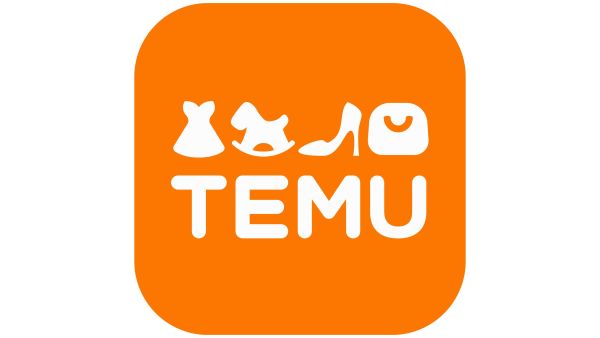
Temu Font
What Font is Temu?
The Temu Font used in the brand’s word-mark is very close in style to Gotham Rounded Bold by Hoefler & Co., featuring clean geometric sans-serif letterforms with subtly rounded ends. For designers looking to replicate this look without licensing the premium typeface, a free alternative font that matches the friendly yet modern character of Temu’s typography is available.
About Temu
Temu is a mobile-driven international e-commerce marketplace launched in 2022 by the parent company of another popular shopping platform. With its bold orange brand emblem, playful and minimal word-mark, and emphasis on accessibility, Temu positions itself as a budget-friendly and trend-driven destination for a wide variety of goods. The typography supports this identity by being approachable, modern and instantly recognizable.